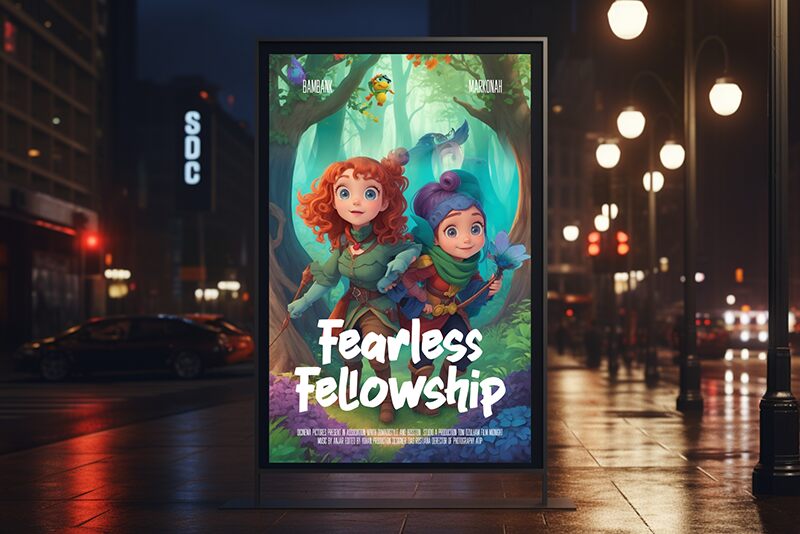
Jakquil Display font is a free fancy font designed by DumadiStyle that features a captivating, energetic, and youthful finish and feel. Each playful and informal letter shape has its own attitude, adding that modern look users might be going for. The chunky characters are sure to catch attention, especially when used as a typography centerpiece.
Use it to display titles and headings for magazines, album covers, posters, flyers, and brochures. Or, add it to packaging and label designs, branding and visual identity projects, online and printed invitations, typography T-shirt, and mug printed designs, in addition to online blogs and websites for a casual and approachable overall look.